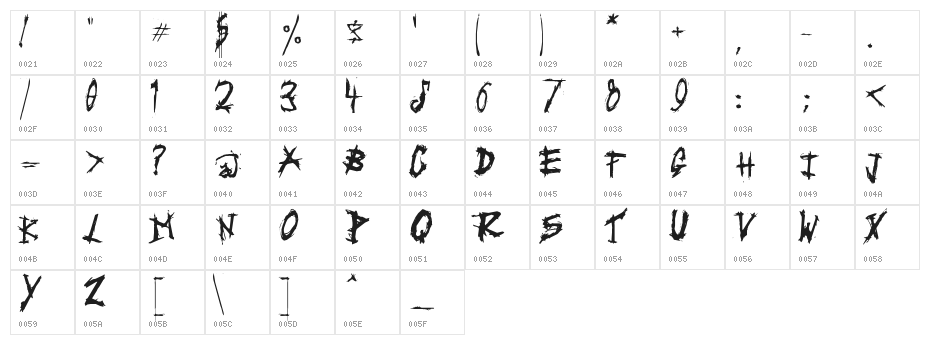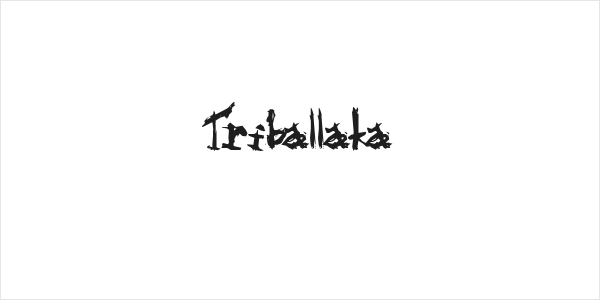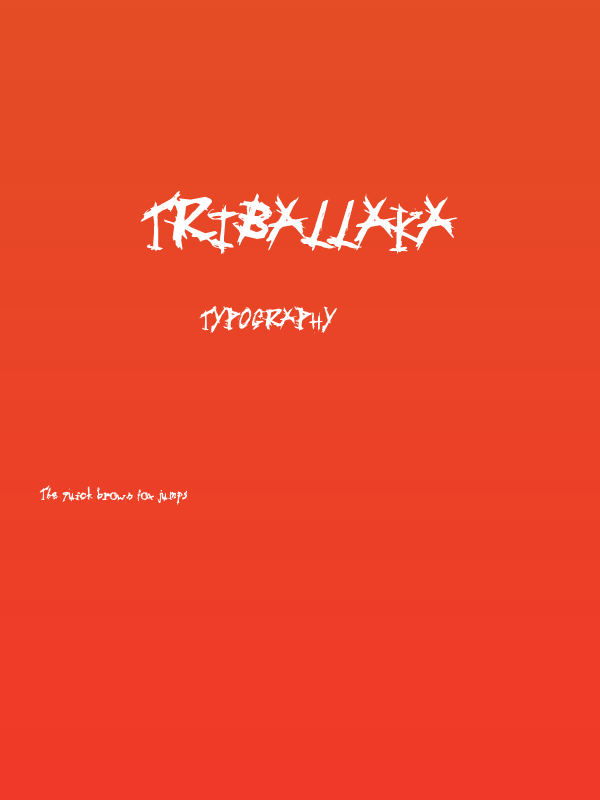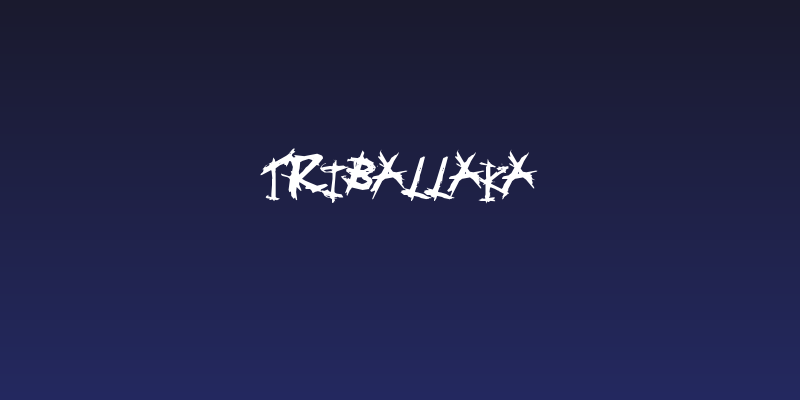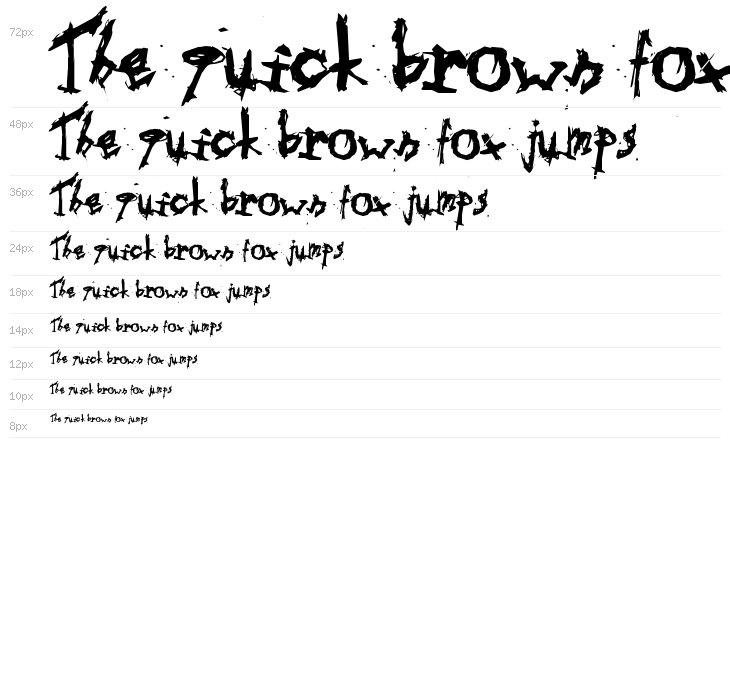
Triballaka Font
Triballaka Description
This font features a bold, jagged, and aggressive style, reminiscent of tribal or graffiti art. The characters are irregular and dynamic, with sharp edges and uneven strokes that create a sense of movement and energy. The uppercase and lowercase letters maintain a consistent chaotic aesthetic, while the numbers and special characters follow suit with their own unique flair. The overall appearance is raw and edgy, making it ideal for designs that require a strong, rebellious statement.
TRIBALLAKA UPPERCASE
TRIBALLAKA LOWERCASE
TRIBALLAKA OTHER CHARS
| Overall Style | Decorative, Edgy |
| Use Case | Logos, Posters, Headlines |
| Proposed Projects | Ideal for album covers, streetwear branding, skateboarding graphics, or any project needing a rebellious, edgy look. |